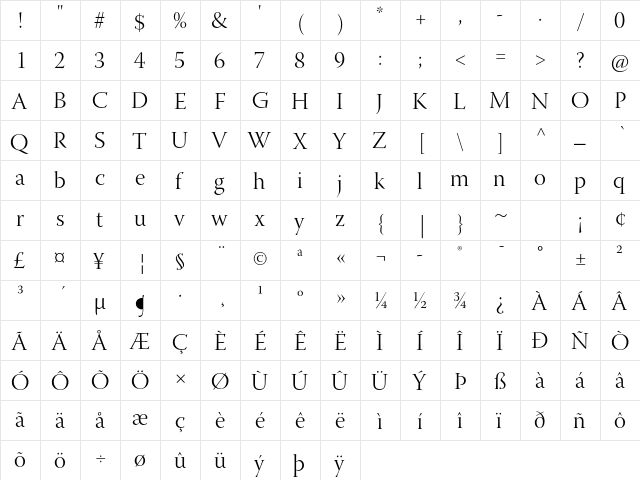
Warnock Pro Light Display
| Designer | Robert Slimbach |
Design Context for Warnock Pro Typeface
Warnock Pro brings ornamental detail and strong personality to headlines and identities, where visual impact matters more than quiet functionality. The delicate stroke weight brings airiness and refinement to layouts.
Font Pairing: Pair with a clean neutral sans-serif for body copy to let Warnock Pro's character lead without overwhelming the composition.
Pro Tip: Treat Warnock Pro as the centrepiece of your typographic hierarchy. One strong heading set in a decorative face can carry an entire layout.